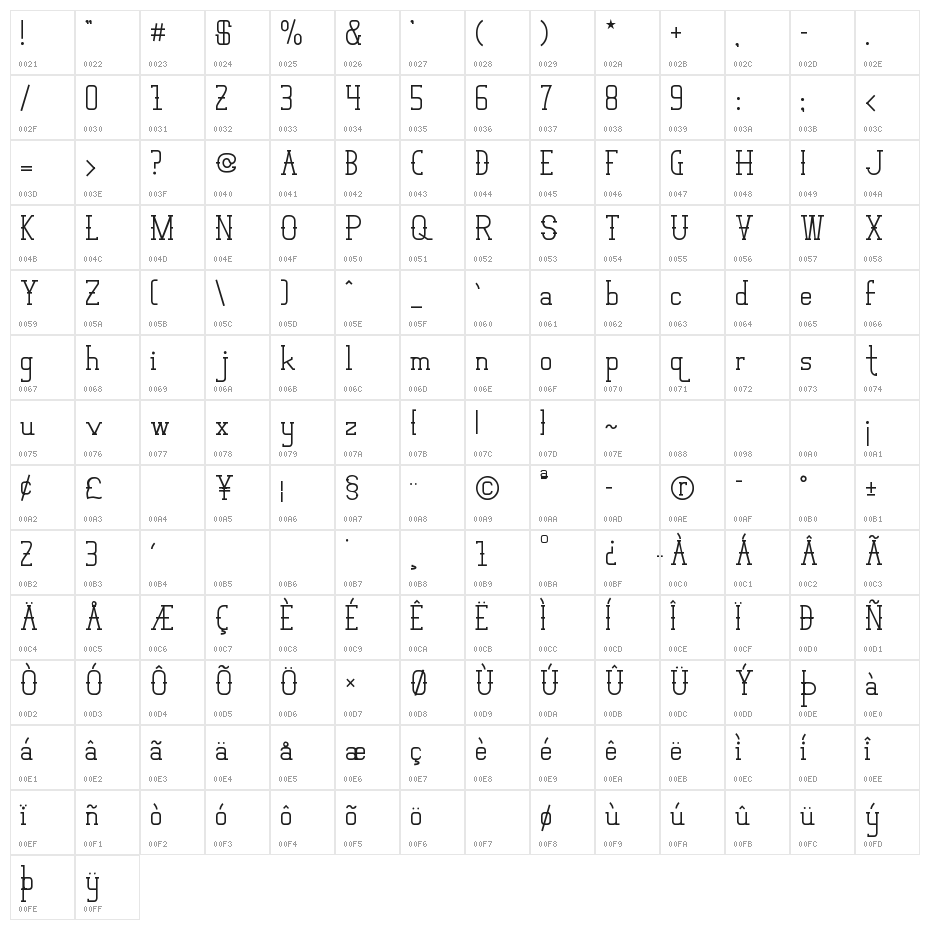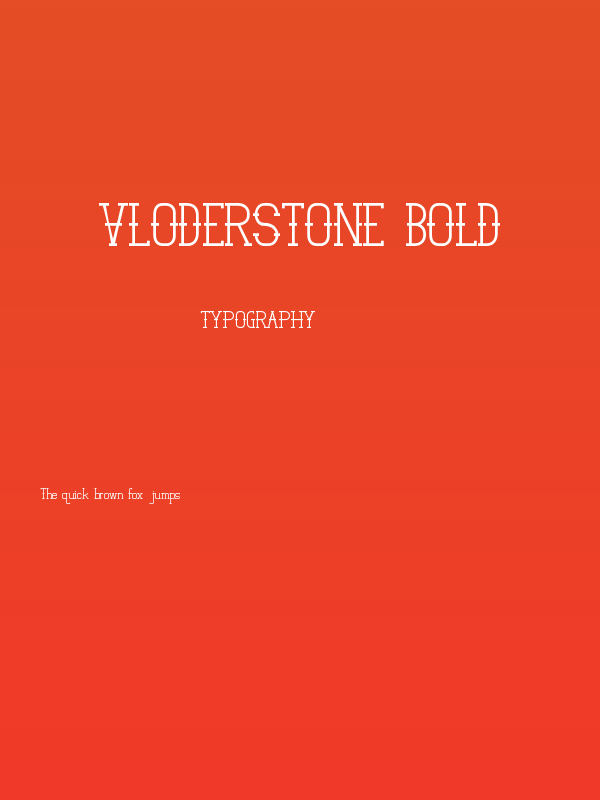
Vloderstone Bold Font
Vloderstone Bold Description
This font features a bold and structured design with a modern twist. The characters are tall and narrow, giving a condensed appearance, yet they maintain a sense of balance and readability. The uppercase letters have a distinctive geometric style, while the lowercase letters offer a more rounded and approachable feel. The numerals are consistent with the overall design, providing clarity and uniformity. Special characters are creatively integrated, adding to the font's versatility. The stroke contrast is medium, ensuring that the font remains legible across various sizes and applications.
| Proposed Projects | Ideal for branding projects, headlines, posters, and modern web design. |